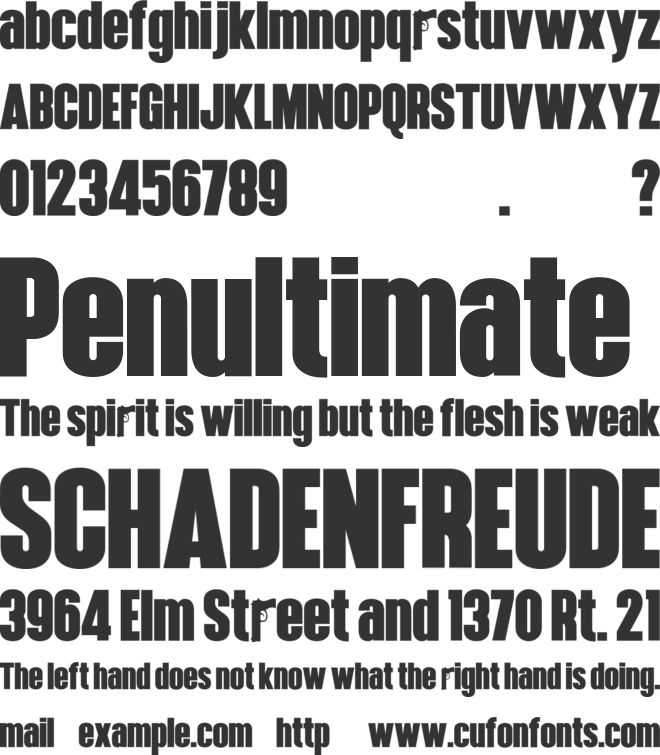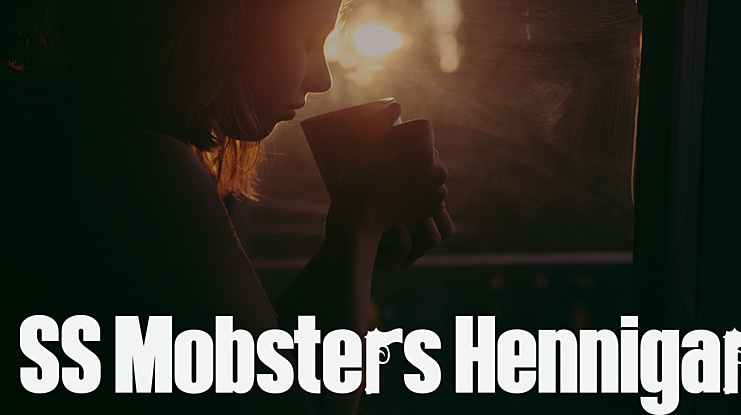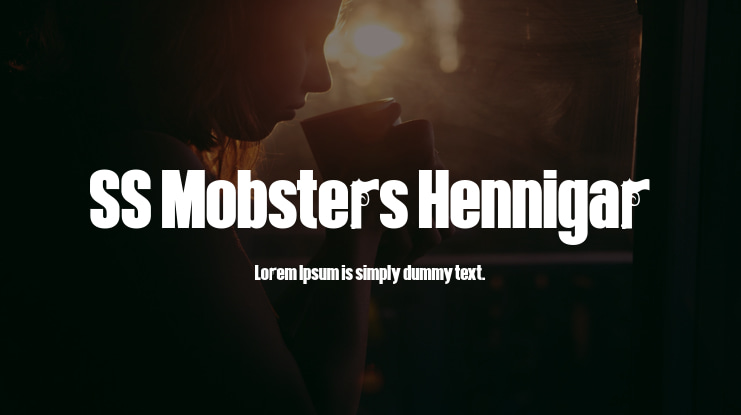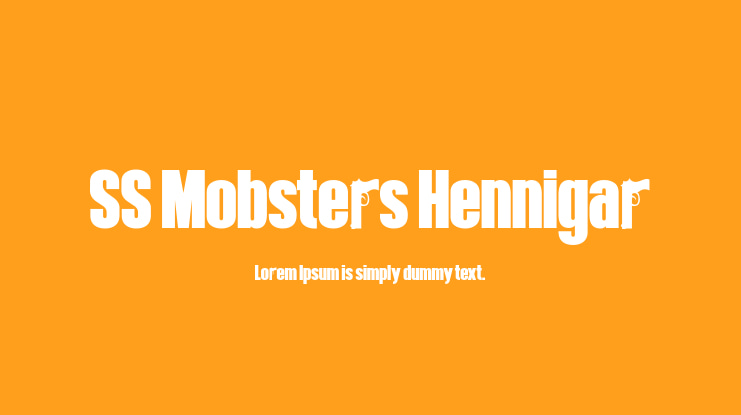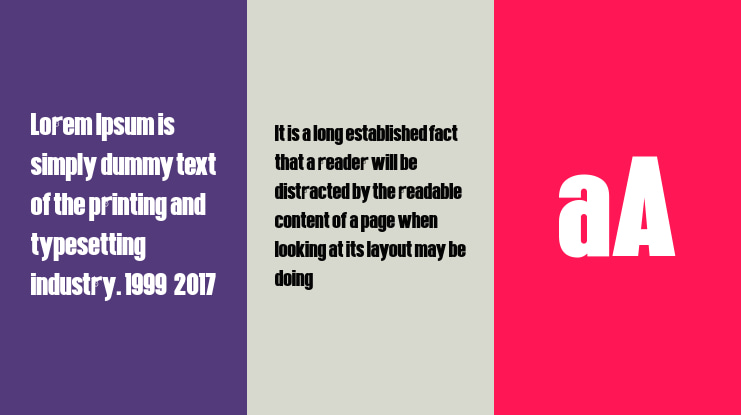
SS Mobsters Hennigar Font
This is the Mobsters version of Hennigar which is an existing family. The only difference is the lowercase r. For personal use only. Contact us for commercial licensing.